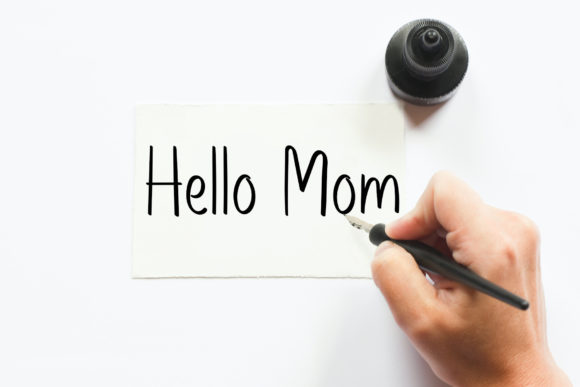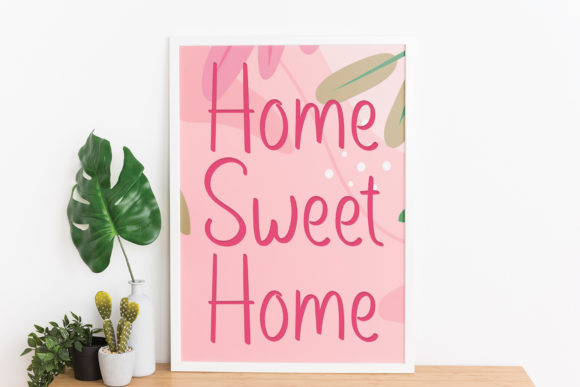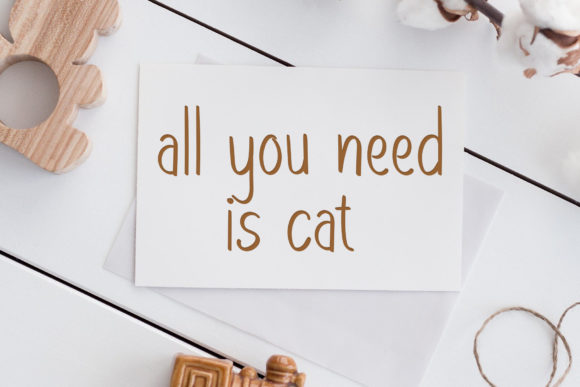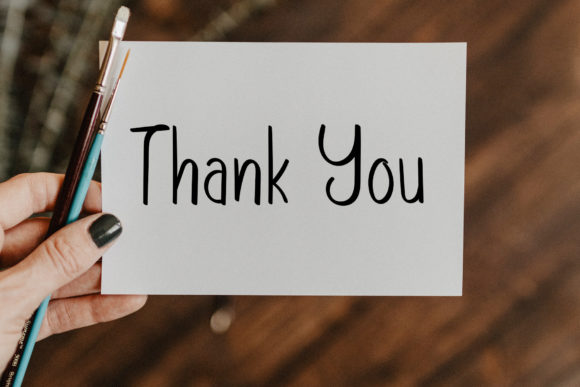
Yellow Roses Font
Yellow Roses is a simple handwritten font with an adaptable theme, featuring a cute style. This font will be an incredible asset to your font library, as it has the potential to elevate any creation, regardless of the topic.
The simplicity and charm of Yellow Roses make it a versatile font that can be used for various design purposes. Whether you’re working on logos, creating invitations, designing social media graphics, or crafting branding materials, this font will add a delightful touch to your projects.
The handwritten style of Yellow Roses adds a personal and authentic feel to your typography. Its cute and playful nature brings a sense of joy and warmth to your designs, making them more engaging and memorable.
No matter the topic or theme of your design, Yellow Roses will effortlessly complement your creative vision. Its adaptable nature allows it to blend seamlessly with different design styles, from whimsical and lighthearted to casual and friendly.